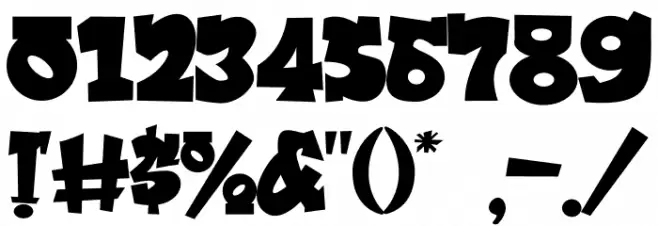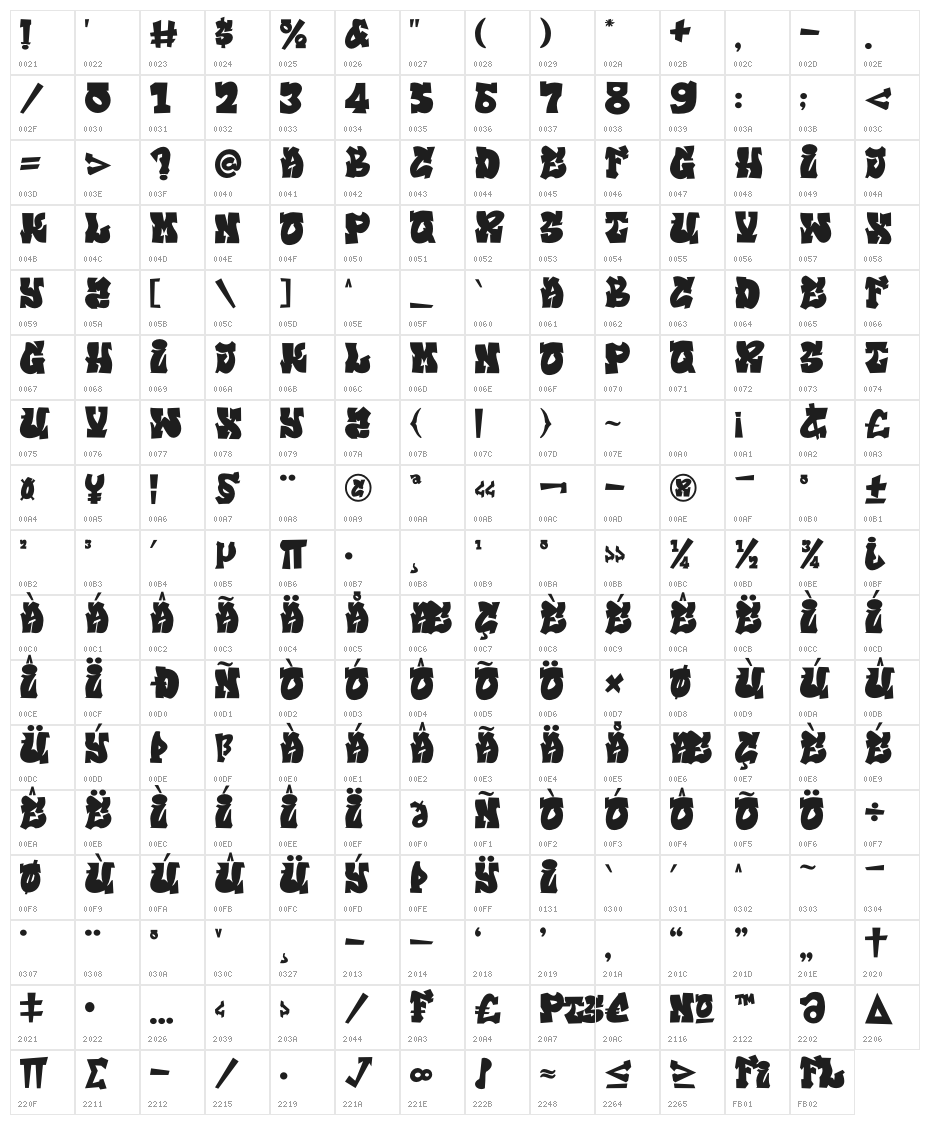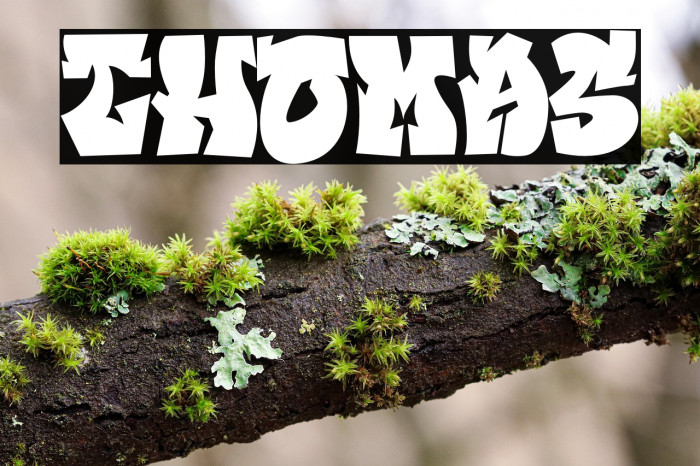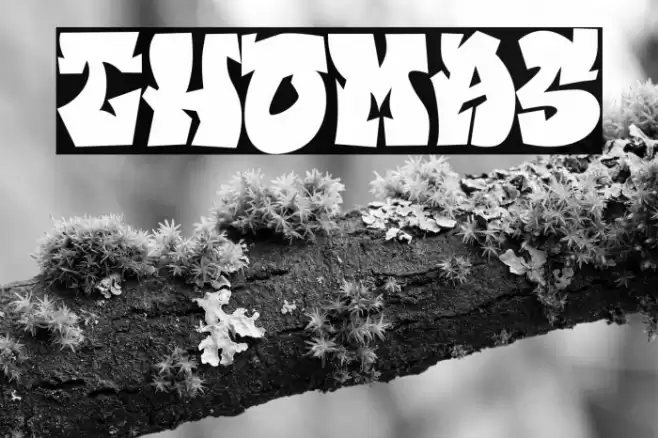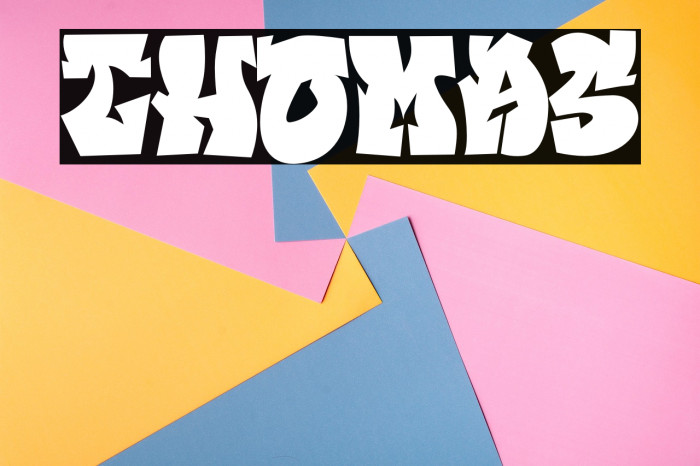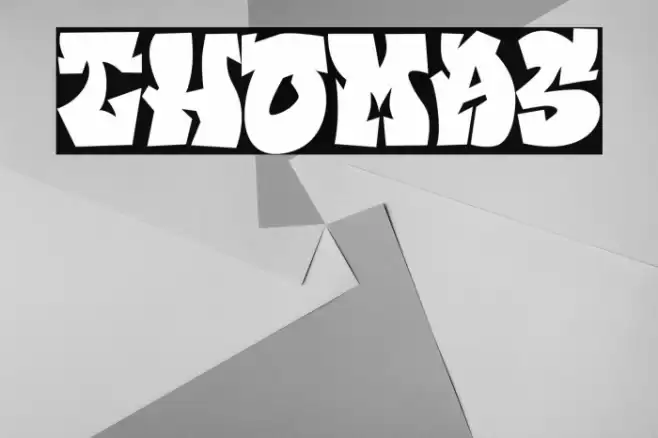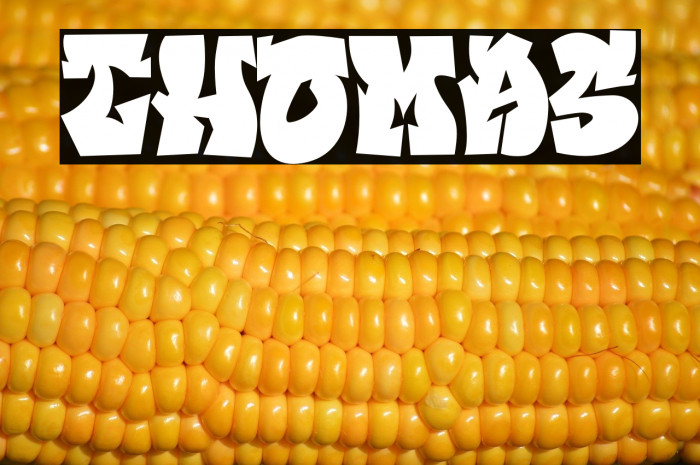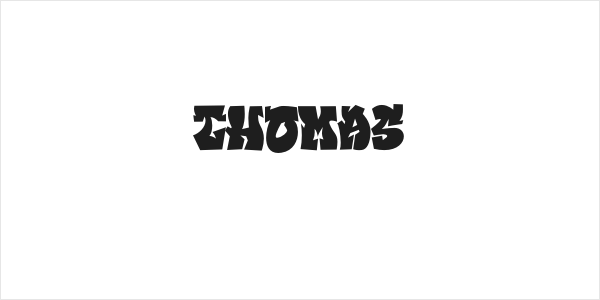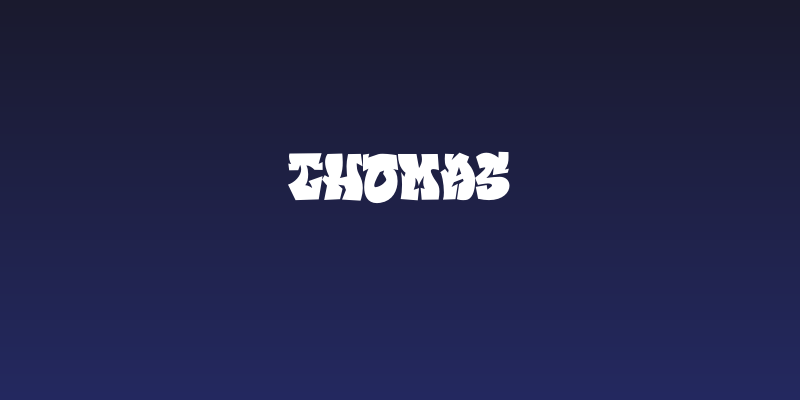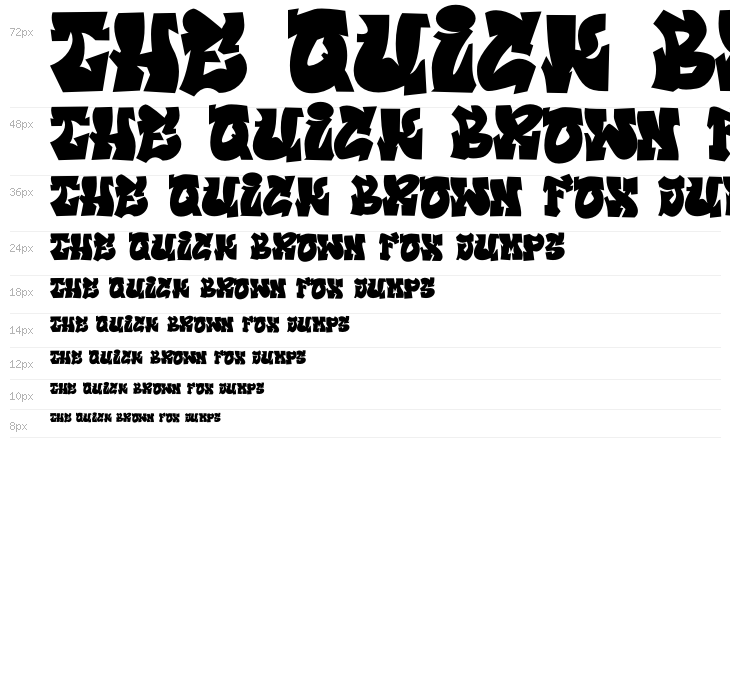
THOMAS Font
THOMAS Description
This font features a bold, dynamic style with a strong presence. The characters are heavily stylized, with sharp angles and exaggerated forms that give it a graffiti-like appearance. The uppercase and lowercase letters maintain a consistent design, with wide strokes and a playful, energetic feel. The numbers and special characters follow the same bold and expressive style, making them stand out. This font is designed to grab attention and convey a sense of movement and creativity.
| Overall Style | Modern, Urban |
| Proposed Projects | Ideal for street art projects, urban-themed designs, posters, and music album covers. |